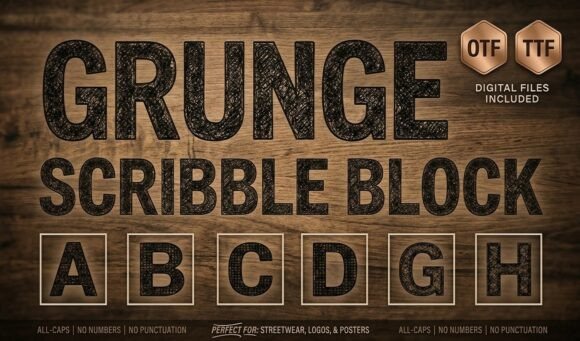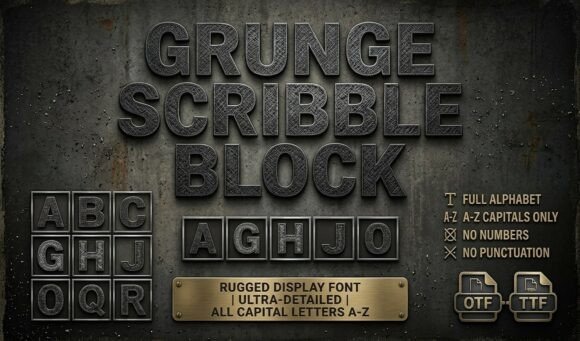
Add Raw, Edgy Energy to Your Designs with Grunge Scribble Block Font
Are you tired of using the same old fonts in your designs? Do you want to add a touch of raw, edgy energy to your projects? Look no further than Grunge Scribble Block, a highly textured, hand-drawn display font that’s sure to make your designs stand out. This unique, heavy block font features a bold outline filled with a dense, chaotic, scribbled interior that’s guaranteed to grab attention.
A Unique and Eye-Catching Font
Grunge Scribble Block is a one-of-a-kind font that’s perfect for designers and crafters who want to add a bit of grit and grunge to their projects. The font’s bold outline and dense, scribbled interior give it a distressed, rough-around-the-edges look that’s perfect for creating striking headers, titles, and focal words. The internal pattern resembles heavy pencil crosshatching, tangled wire, or a distressed sketch, adding to the font’s edgy, avant-garde feel.
Perfect for Headers, Titles, and Focal Words
Because of its intense texture, Grunge Scribble Block works perfectly as a striking centerpiece for your projects. For the best results, it’s highly recommended to use this font at larger sizes for headers, titles, and focal words. This will allow the intricate details of the font to shine through and create a lasting impression on your audience. Whether you’re designing a poster, flyer, or social media graphic, Grunge Scribble Block is sure to make your design pop.
Tips for Using Grunge Scribble Block
To get the most out of Grunge Scribble Block, here are a few tips to keep in mind:
- Use it at larger sizes: As mentioned earlier, Grunge Scribble Block is best used at larger sizes to fully appreciate the intricate details of the font.
- Pair it with simple fonts: To avoid overwhelming your design, pair Grunge Scribble Block with simple, easy-to-read fonts for body text and other secondary elements.
- Experiment with colors: Grunge Scribble Block looks great in bold, bright colors, but it can also be used in more muted tones to create a subtle, distressed look.
- Use it sparingly: Because of its bold, eye-catching nature, it’s best to use Grunge Scribble Block sparingly to avoid overwhelming your design.
Who Can Benefit from Grunge Scribble Block?
Grunge Scribble Block is perfect for a variety of designers and crafters, including:
- Graphic designers: Whether you’re designing logos, brochures, or social media graphics, Grunge Scribble Block is a great way to add a touch of edgy energy to your designs.
- Artists and illustrators: Grunge Scribble Block can be used to add texture and interest to your artwork, or as a way to create bold, eye-catching titles and headers.
- Crafters: If you’re creating handmade cards, scrapbook pages, or other craft projects, Grunge Scribble Block is a great way to add a touch of personality and style.
If you’re looking for a font that will add raw, edgy energy to your designs, look no further than Grunge Scribble Block. This unique, highly textured font is perfect for designers and crafters who want to create striking headers, titles, and focal words that will grab attention. With its bold outline and dense, scribbled interior, Grunge Scribble Block is sure to become a go-to font in your collection.